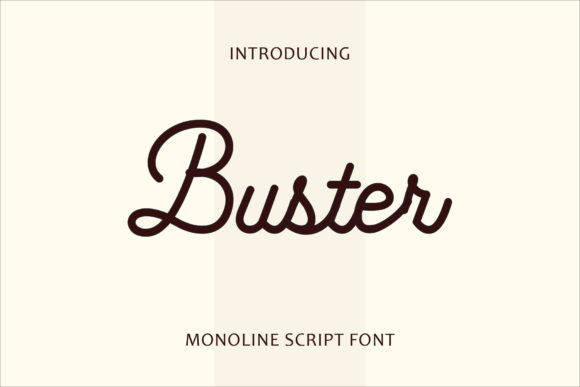
The Buster Font: A Vintage Dream for Designers and Crafters
I’ll never forget the time I was working on a wedding invitation project, and my client asked for a font that was “vintage-chic” and “whimsical.” I scoured the internet, tried countless fonts, but nothing seemed quite right. That was until I stumbled upon the Buster Font. With its highly detailed, vintage-styled handwritten aesthetic, it was love at first sight! 💕
The Buster Font is a highly versatile typeface that can be used for various purposes such as logos, wedding invitations, headings, t-shirts, letterhead, signage, labels, news, posters, badges, and so much more. In this article, I’ll share my experience with the Buster Font, its features, and how to make the most of it in your designs.
- ✨ Highly detailed and intricate design
- ✅ Wide range of use cases, from formal to informal
- 💫 Unique and distinctive character set
- 🎨 Great for adding a touch of elegance and sophistication to designs
While the Buster Font is an excellent choice for many projects, there are a few things to keep in mind:
- ⚠️ May not be suitable for very small font sizes, as details may get lost
- 🤔 Limited availability of certain characters or glyphs
The Buster Font was created by a talented designer who drew inspiration from vintage typography and handwriting. With a passion for creating unique and functional fonts, the designer aimed to craft a typeface that would evoke a sense of nostalgia and sophistication. The result is a font that’s both elegant and distinctive, perfect for adding a touch of personality to your designs.
| Author | The1stWinner |
Q: What is the Buster Font best suited for?
A: The Buster Font is a versatile typeface that can be used for various purposes, including logos, wedding invitations, headings, t-shirts, letterhead, signage, labels, news, posters, badges, and more.
Q: Is the Buster Font easy to read?
A: The Buster Font is a highly detailed font, which can make it more challenging to read at very small font sizes. However, at larger font sizes, it’s clear and legible.